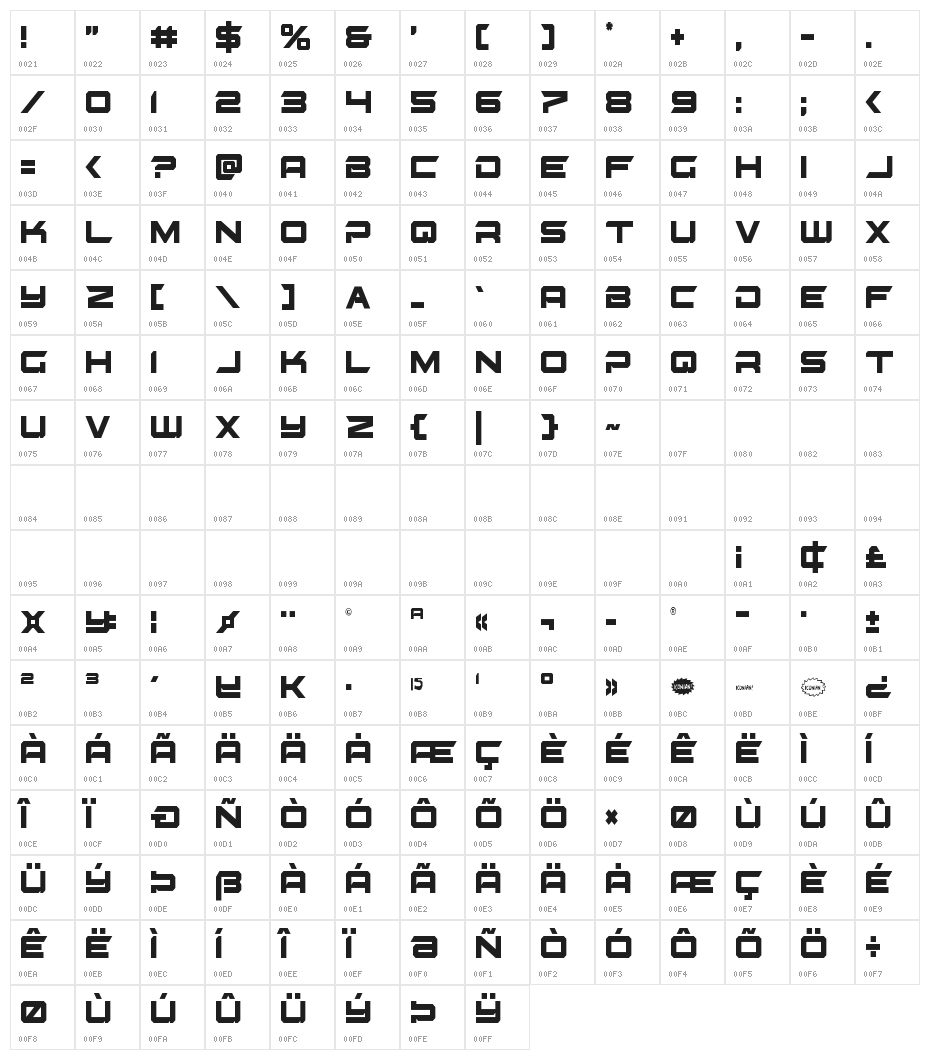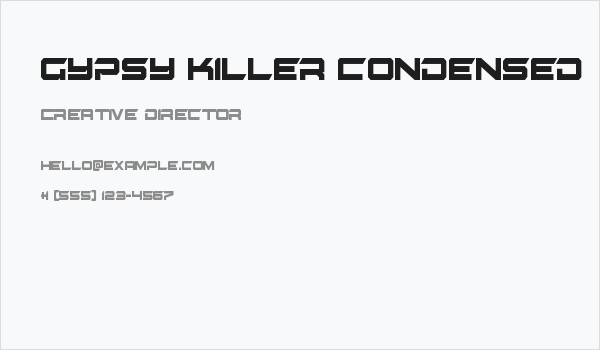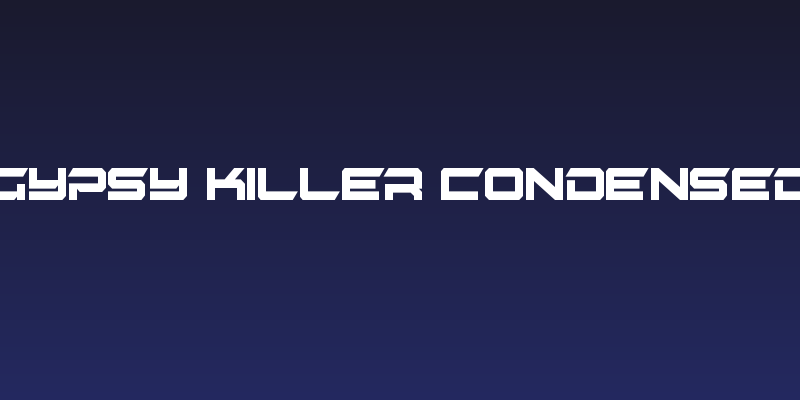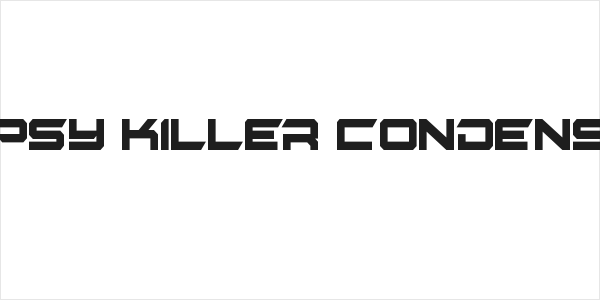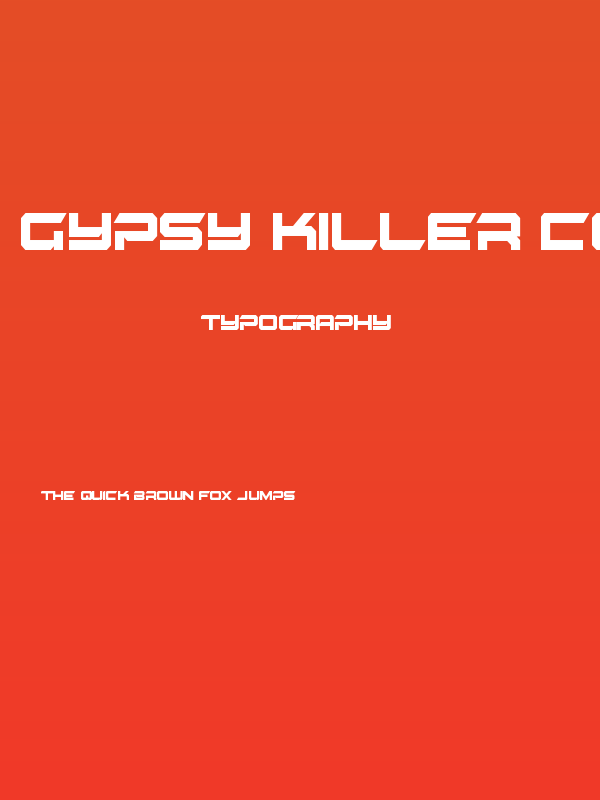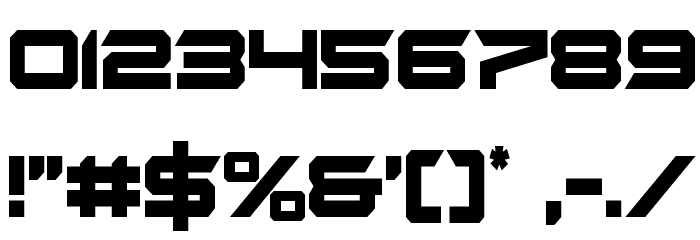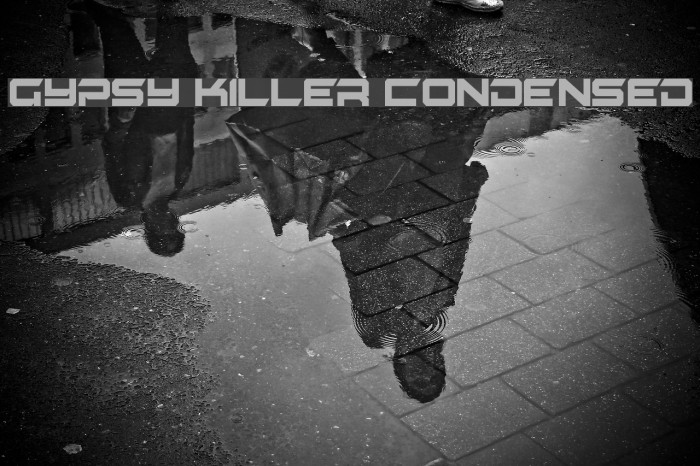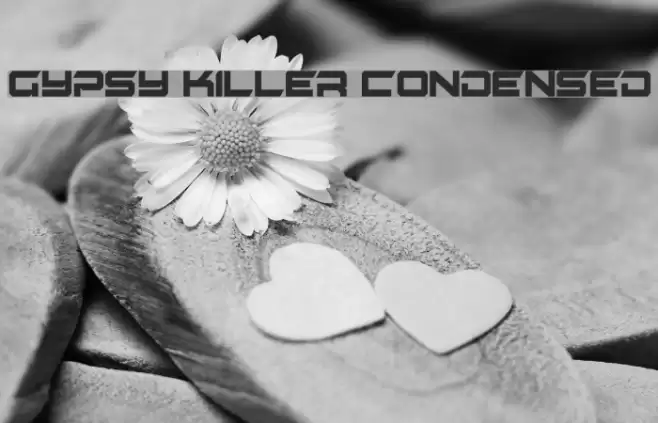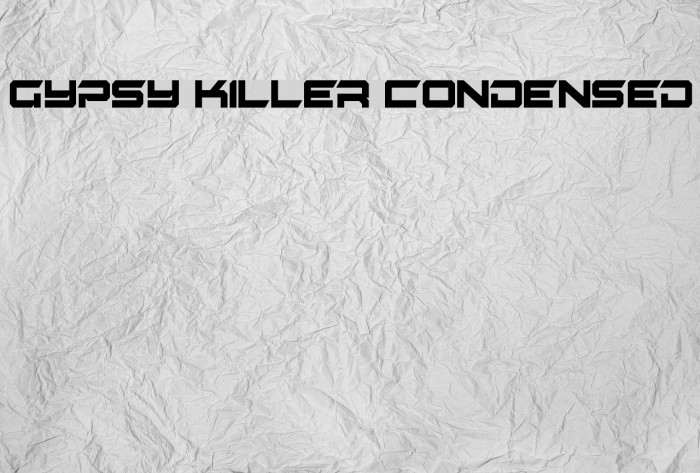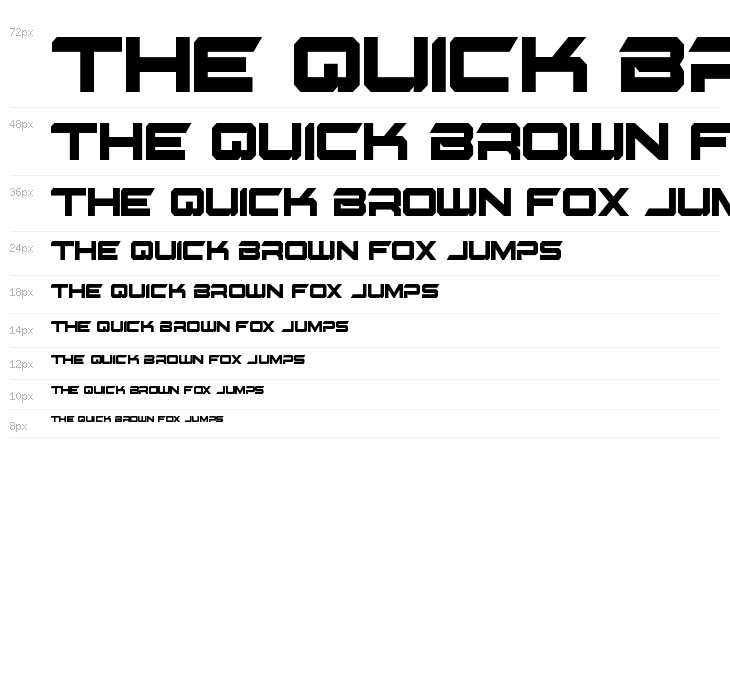
Gypsy Killer Condensed Font
Gypsy Killer Condensed Description
This font features a bold, geometric design with sharp angles and a futuristic aesthetic. The characters are condensed, giving a compact and efficient appearance. The uppercase letters are uniform in height, while the lowercase letters maintain a similar style, ensuring consistency across the typeface. Numbers and special characters are designed to match the bold and angular theme, making them stand out. The overall style is modern and edgy, suitable for projects that require a strong visual impact.
| Proposed Projects | Ideal for sci-fi movie posters, video game titles, tech branding, and edgy graphic design projects. |